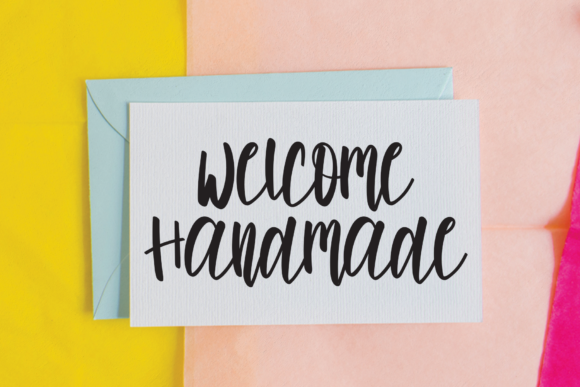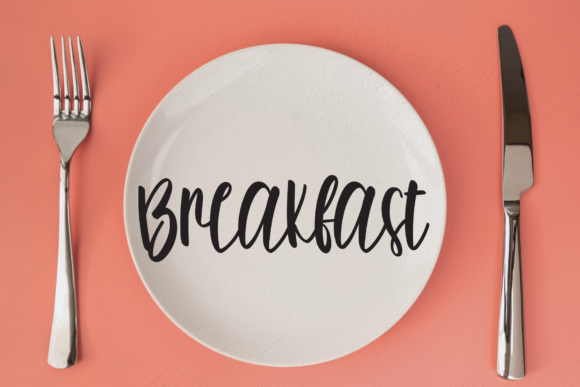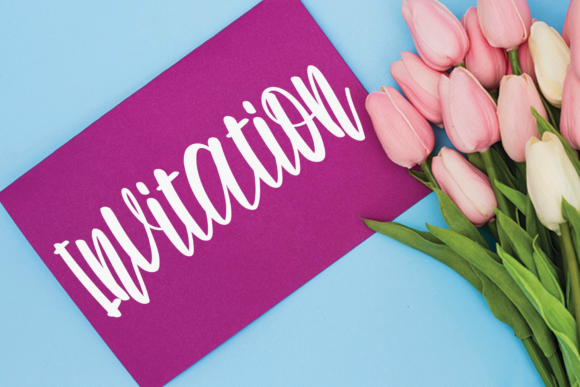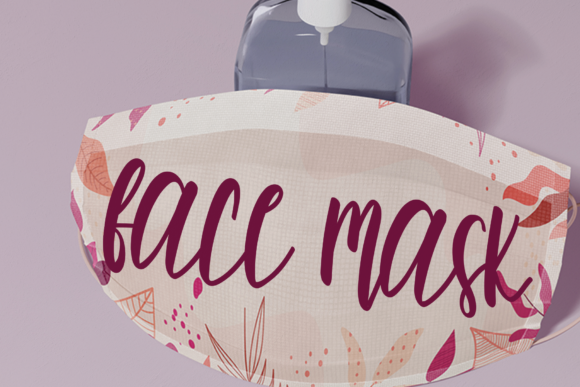
Introducing Heart Font: The Perfect Handwritten Typeface for Authentic Designs
Are you tired of using generic, overused fonts in your designs? Do you want to add a touch of personality and authenticity to your projects? Look no further than Heart Font, a beautiful and flowing handwritten typeface that perfectly resembles natural writing.
What is Heart Font?
Heart Font is a stylish and elegant handwritten font that is designed to mimic the natural flow of handwriting. With its unique and authentic look, this typeface is perfect for designers and crafters who want to add a personal touch to their projects. Whether you’re working on a branding project, a wedding invitation, or a DIY craft, Heart Font is the perfect choice.
Characteristics of Heart Font
So, what makes Heart Font so special? Here are just a few of its key characteristics:
- Flowing and natural look: Heart Font has a beautiful, flowing look that perfectly captures the natural movement of handwriting.
- Authentic feel: This typeface has a genuine, handwritten feel that will add a touch of personality to your designs.
- Highly legible: Despite its handwritten look, Heart Font is highly legible and easy to read, making it perfect for use in a variety of projects.
- Versatile: Heart Font is a versatile typeface that can be used in a wide range of projects, from formal to informal.
Why Choose Heart Font?